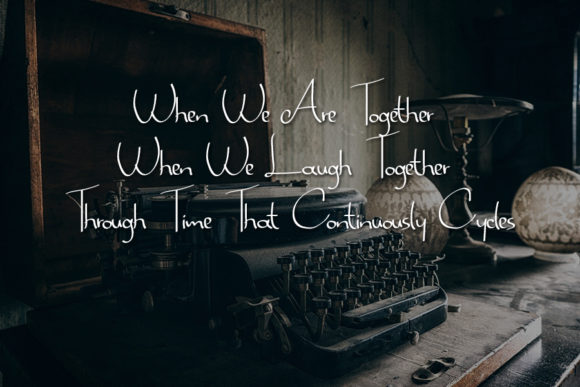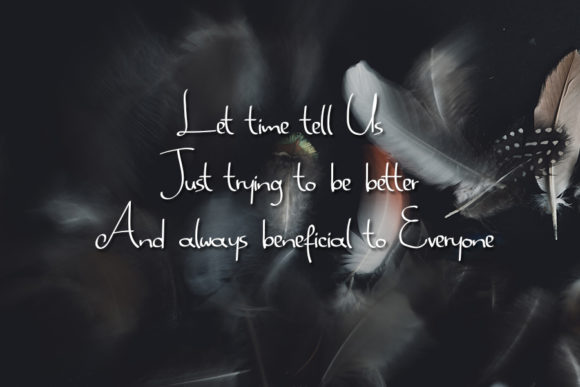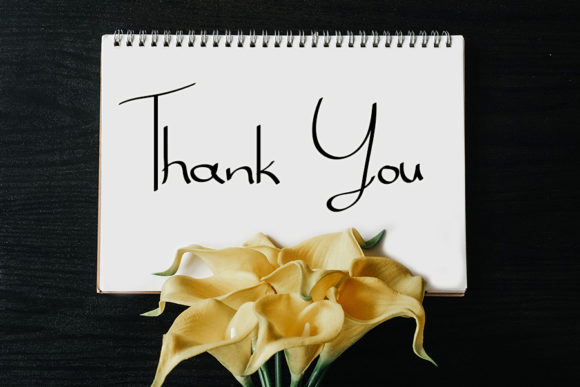
Introduction to Shillaute Font Font
Fonts play a crucial role in design, and the Shillaute Font font is a typeface that brings both character and versatility to any project. Whether you’re working on a branding project, a website, or a print design, the Shillaute Font font offers a unique style that can elevate your work.
Shillaute is a thin and elegant handwritten font.
Use this font for any crafting project that requires a personalized look .
Key Features of Shillaute Font Font
Why Choose Shillaute Font Font?
The Shillaute Font font is more than just a typeface – it’s a design tool that helps you communicate your message with style and clarity. Its unique character set and versatile design make it suitable for a wide range of applications, from elegant invitations to bold headlines.
With its carefully crafted letterforms and balanced proportions, the Shillaute Font font ensures readability and visual appeal across all mediums.
What makes Shillaute Font font special?
The Shillaute Font font stands out with its unique design, exceptional readability, and versatility across various design applications.